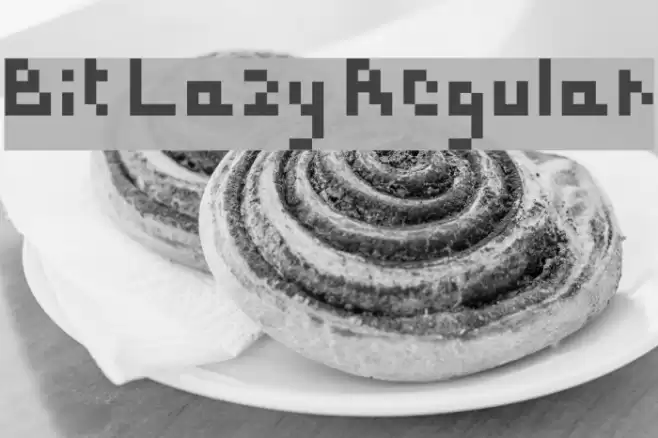
Bit Lazy Regular Font
Bit Lazy Regular Description
This font features a pixelated, blocky design reminiscent of early digital displays and retro video games. Each character is constructed with uniform square blocks, giving it a distinctly digital and geometric appearance. The uppercase and lowercase letters maintain a consistent height, contributing to a monospaced feel, although the font is not strictly monospaced. The numbers and special characters follow the same pixelated style, ensuring a cohesive look across all glyphs. The simplicity and uniformity of the design make it highly legible at various sizes, while the nostalgic aesthetic adds a playful and vintage touch.
A pixelated, blocky font with a retro digital aesthetic from Uncategorized fonts.
- Proposed Projects: Ideal for retro-themed designs, video game graphics, digital art projects, and any creative work that requires a nostalgic or playful touch.
- Overall Style: Vintage
- Use Case: Logos, Headlines, Posters, Digital Art